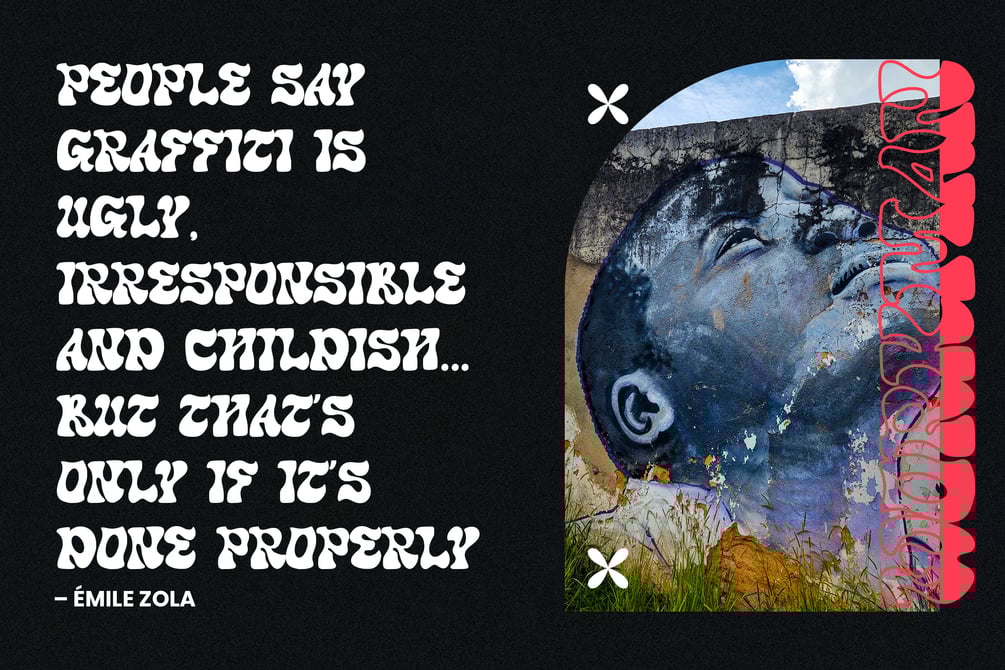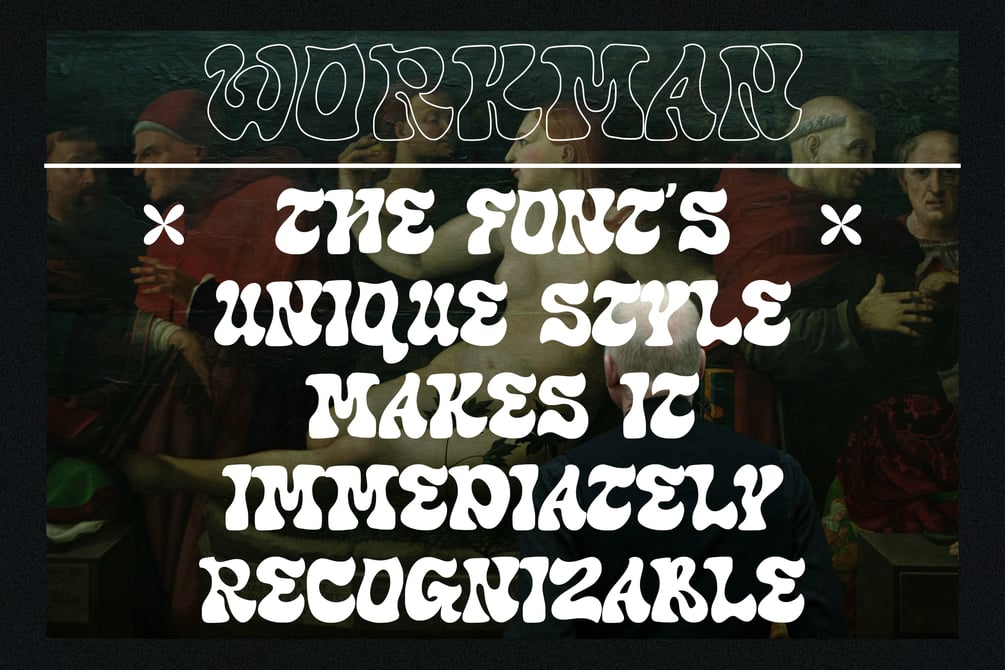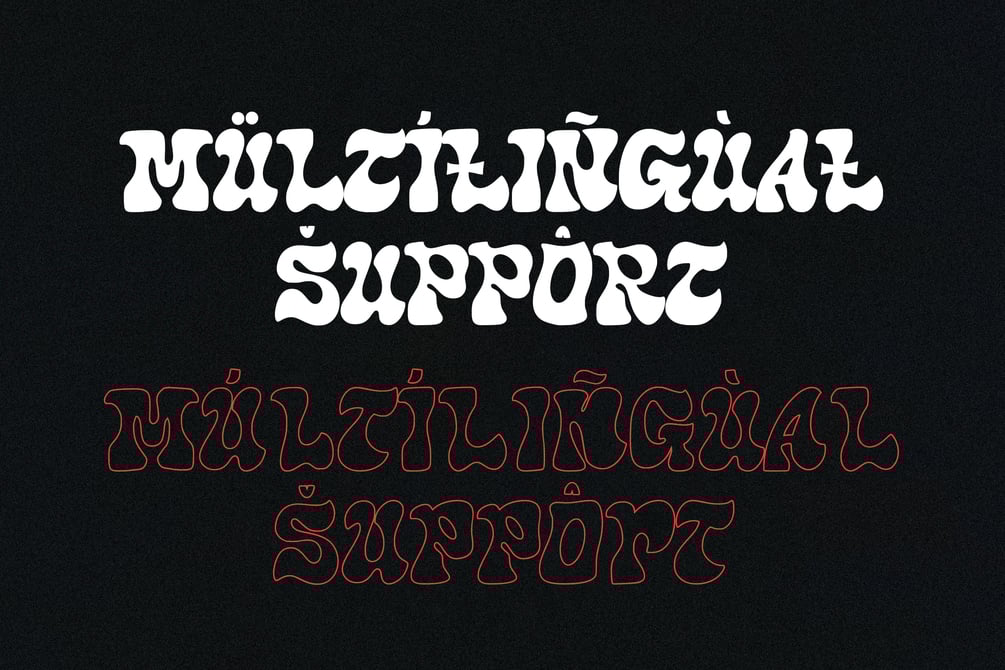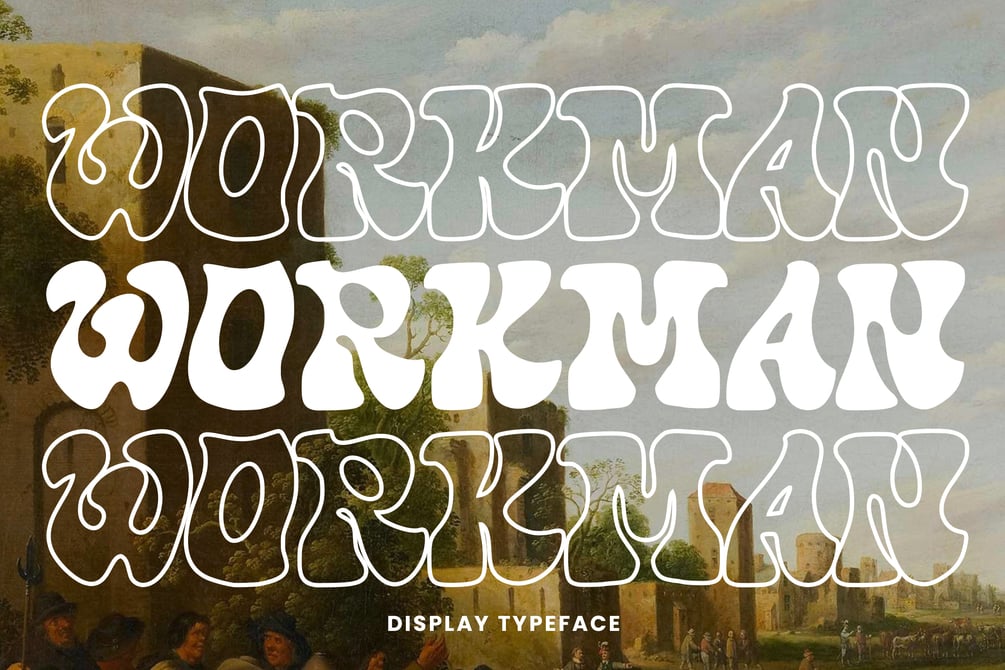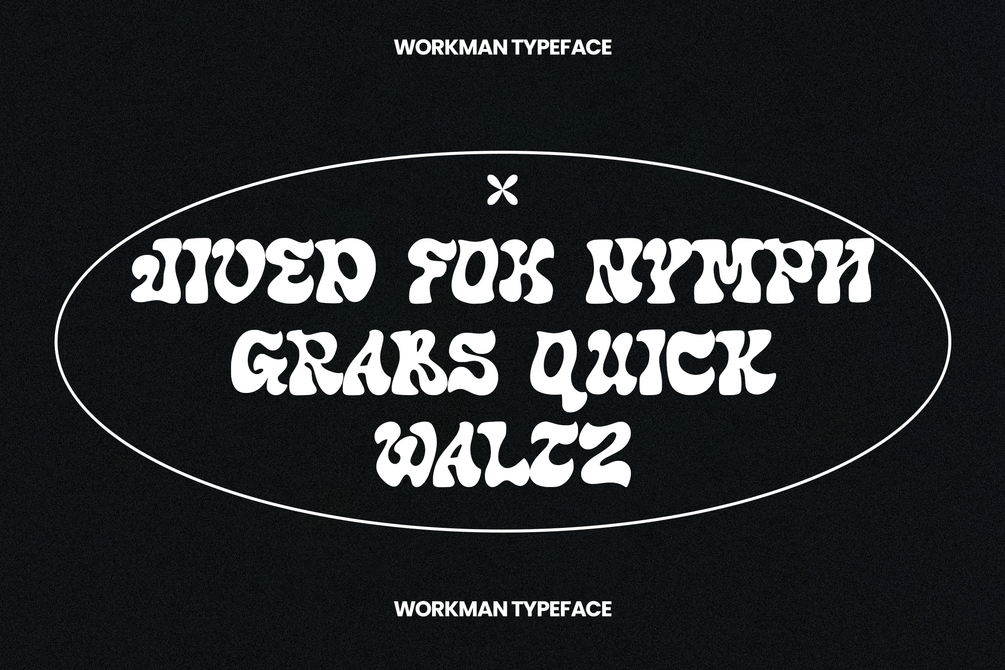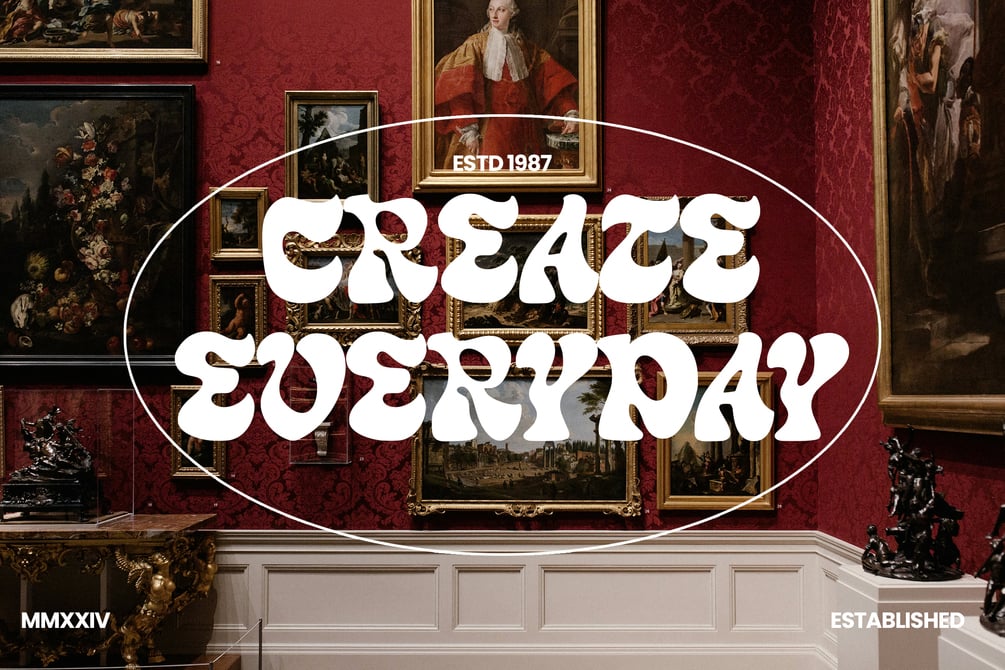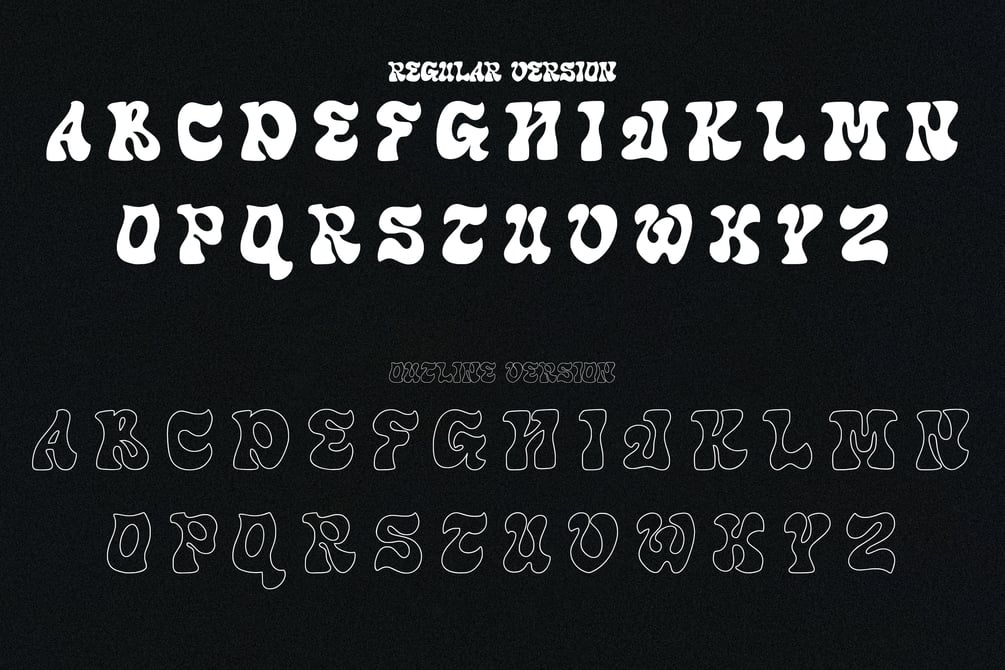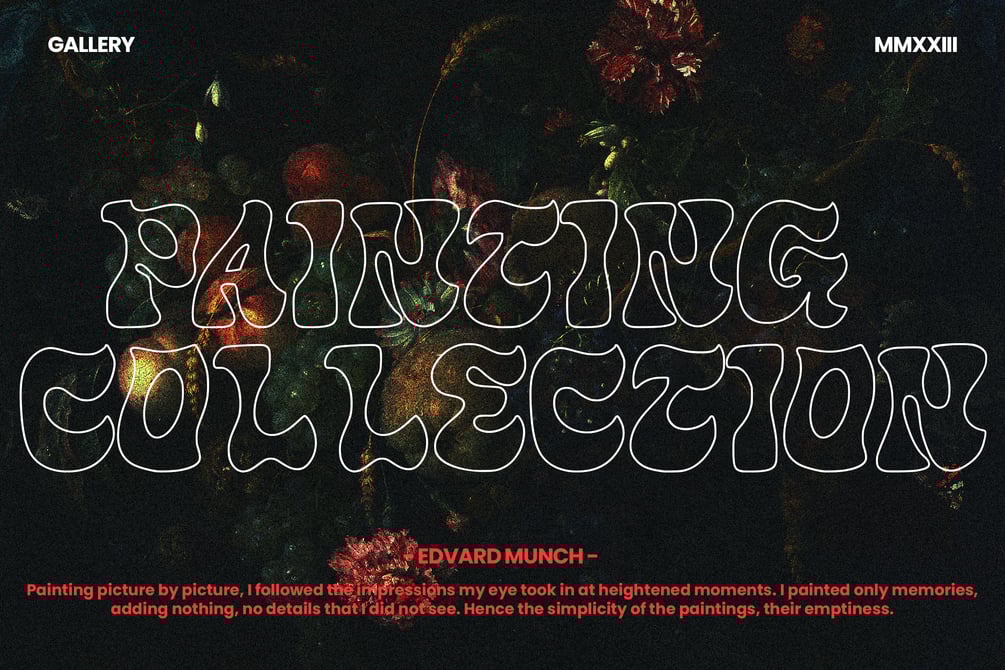
Workman
### Explanation of Display Font: Workman
The "Workman" font is a robust and impactful display typeface designed to grab attention and make a bold statement. Display fonts are typically used for headlines, titles, and other prominent text where readability and visual impact are key. Here’s a detailed explanation of the key features and benefits of the "Workman" font:
#### Key Features of Workman Font
1. Bold and Strong Design:
- Heavy Weight: "Workman" features a bold and heavy weight that ensures the text stands out in any design context. Its strong presence makes it ideal for headlines and titles.
- Solid Structure: The font is characterized by its solid and sturdy structure, giving it a sense of strength and reliability.
2. Geometric Precision:
- Clean Lines: The design of "Workman" incorporates clean and precise lines, providing a modern and professional look.
- Balanced Proportions: The font maintains well-balanced proportions, ensuring each character is harmonious with the others, contributing to a cohesive visual appearance.
3. Versatility in Design:
- Multiple Weights and Styles: "Workman" may come in various weights and styles, allowing designers to use it flexibly in different contexts while maintaining a unified look.
- Extended Character Set: The font includes an extended character set with a variety of glyphs, punctuation marks, and special characters, enhancing its versatility for different languages and design needs.
4. High Legibility:
- Clear and Readable: Despite its boldness, "Workman" is designed to be highly legible. The careful balance of thick and thin strokes ensures that the text is easy to read, even from a distance.
- Well-Kerned: The font includes precise kerning, ensuring optimal spacing between characters for better readability and visual appeal.
#### Benefits of Using Workman Font
1. Attention-Grabbing Headlines:
- High Visual Impact: The bold and strong design of "Workman" makes it perfect for headlines, titles, and other prominent text. It draws the viewer’s attention and ensures the message is noticed.
- Memorable Design: The unique and robust appearance of the font makes it memorable, helping to create a strong visual identity for any project or brand.
2. Versatile Applications:
- Digital and Print Media: "Workman" is suitable for both digital and print media, making it versatile for use in websites, social media graphics, posters, banners, and advertisements.
- Branding and Logos: The solid and dependable look of the font makes it an excellent choice for branding and logo design, conveying a sense of strength and reliability.
3. Enhanced Visual Appeal:
- Modern and Professional: The geometric precision and clean lines of "Workman" give it a modern and professional look, enhancing the overall aesthetic of any design.
- Stylish and Contemporary: The font’s design aligns with contemporary design trends, making it suitable for a wide range of applications in modern design contexts.
4. Emotional Connection:
- Strong and Reliable: The sturdy and robust design of "Workman" conveys a sense of strength, reliability, and trustworthiness, making it ideal for brands and projects that want to evoke these qualities.
### Conclusion
"Workman" is a bold and impactful display typeface that combines strength, readability, and versatility. Its heavy weight and solid structure make it perfect for grabbing attention in headlines, titles, and prominent text. Whether used in digital media, print design, branding, or logos, "Workman" offers a modern and professional look that enhances the visual appeal and effectiveness of any project. By incorporating "Workman," designers can create memorable and strong visual identities that stand out and convey a sense of reliability and strength.
Uppercase and lowercase characters
Accents (Supports Multilingual Characters)
Regular and Outline